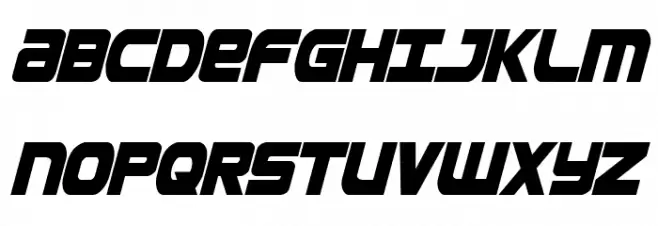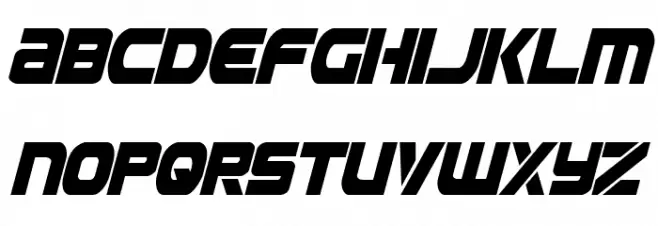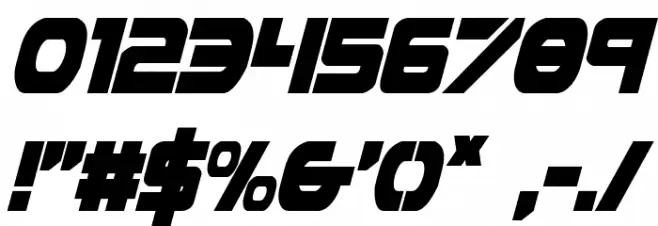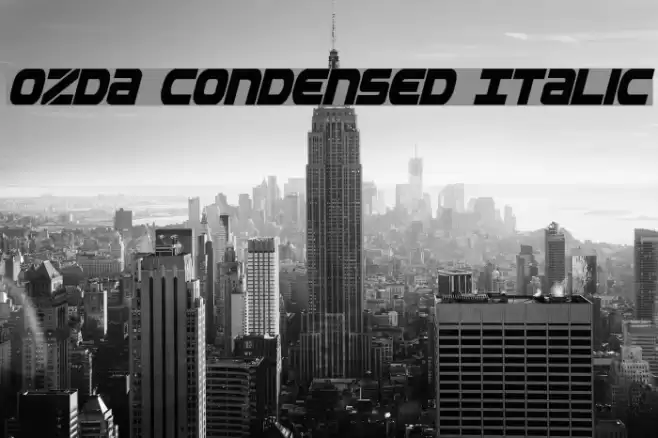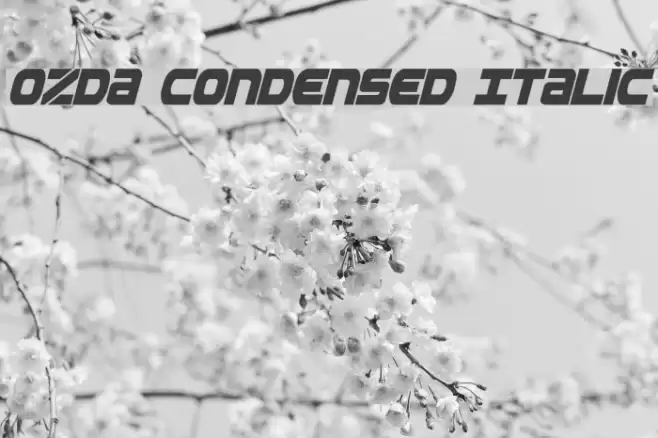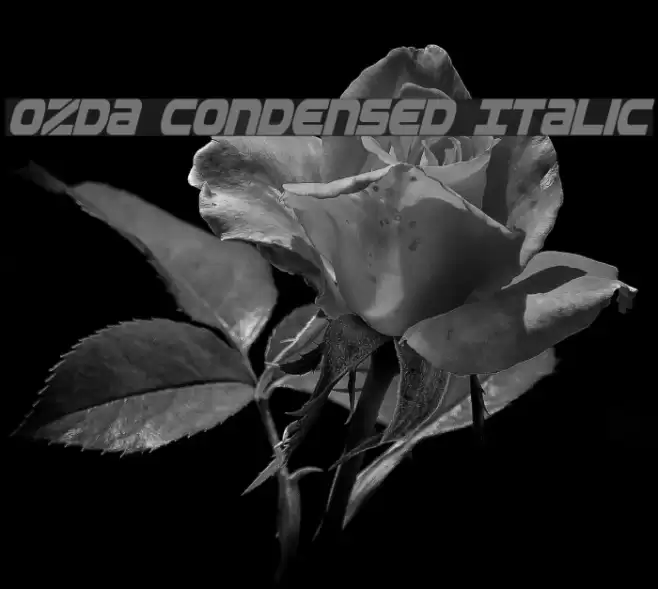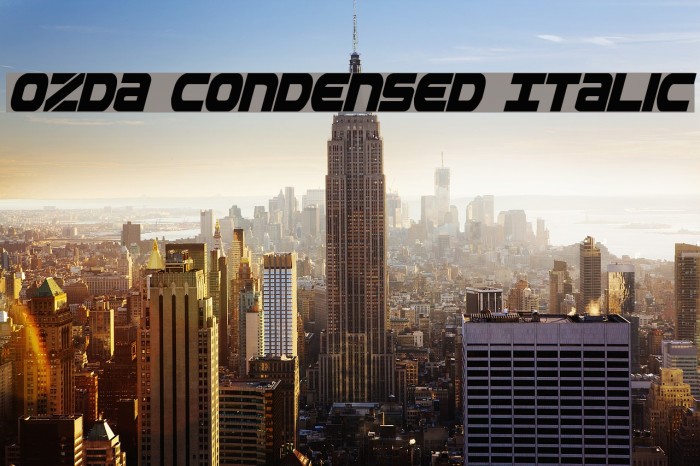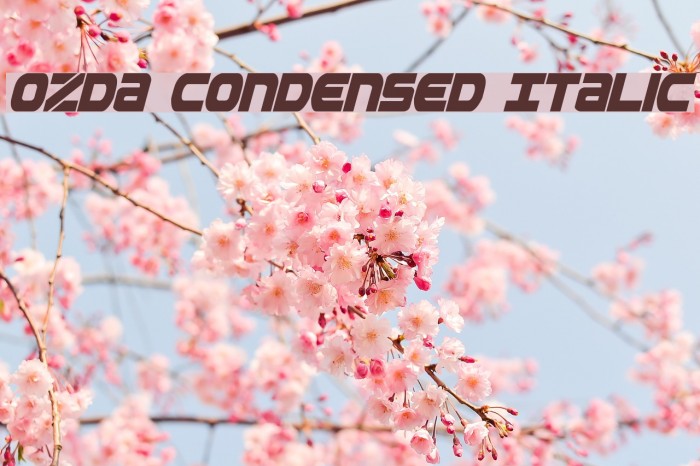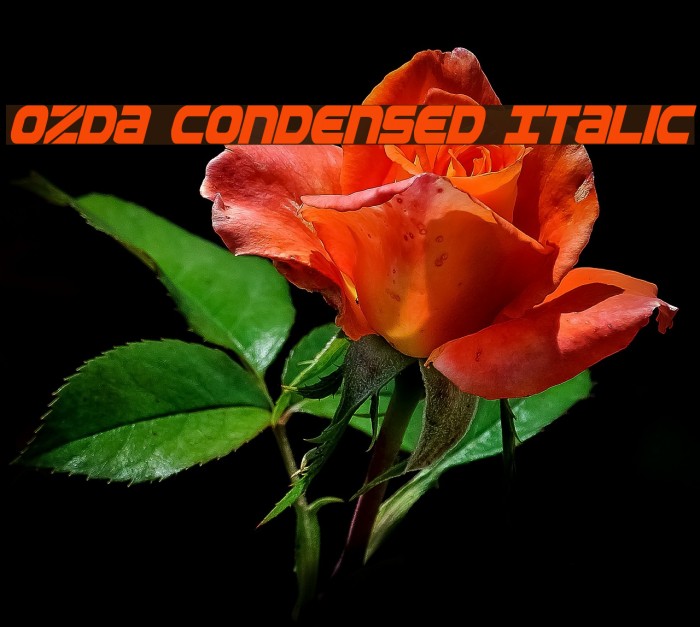
Ozda Condensed Italic
This font features a bold, italicized style with a distinctly modern and futuristic appearance. The characters are condensed, giving them a sleek and streamlined look. The strokes are thick and consistent, providing a strong visual impact. The angular design of the letters adds a dynamic and energetic feel, making it suitable for attention-grabbing headlines or branding. The numbers and special characters maintain the same bold and italicized characteristics, ensuring uniformity across all elements.
A bold, italicized, and condensed font with a modern, futuristic style.
- Proposed Projects: Ideal for use in technology branding, sports team logos, dynamic posters, and modern advertising campaigns.
- Width: Condensed
- Character Spacing: Tight